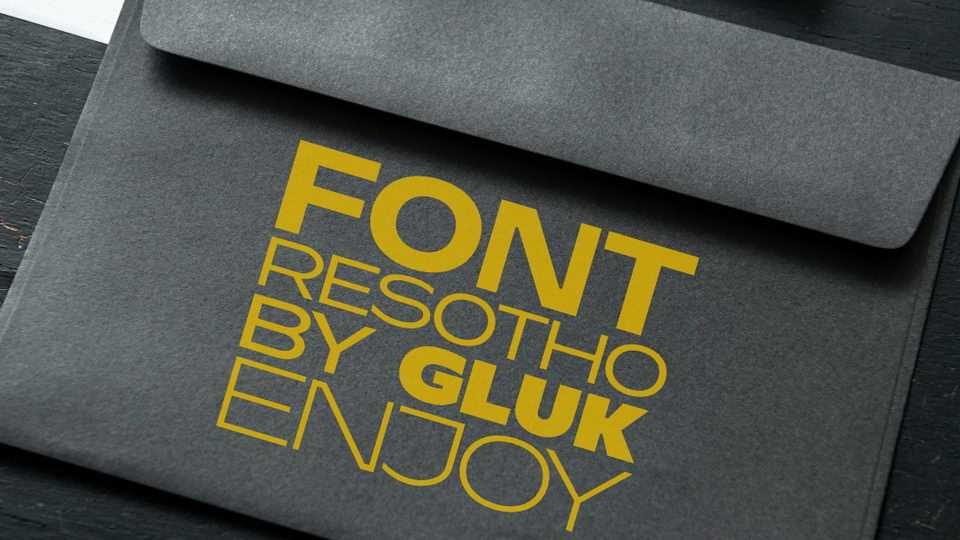
Download Resotho typeface, a geometric sans serif display font family. Resotho is perfect for graphic design, branding, packaging design but very versatile.
Designer: Grzegorz Luk